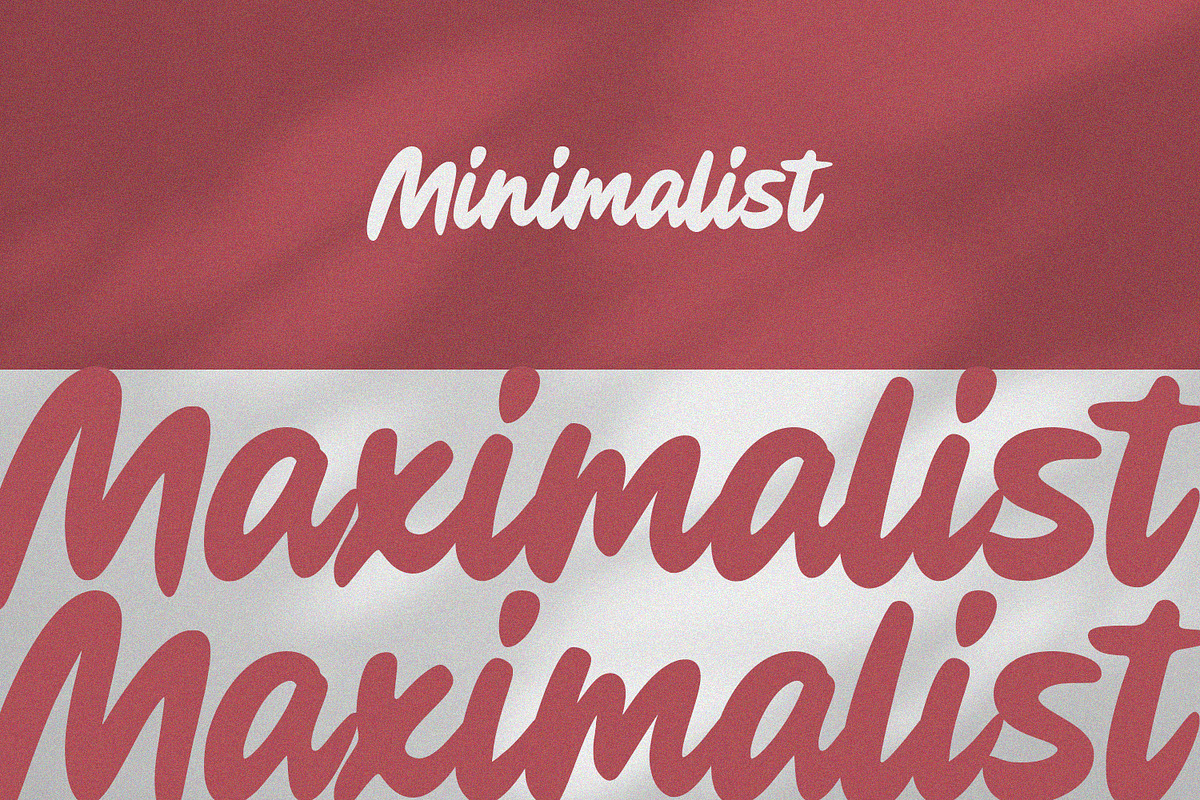
Quandary Font is a script font with elegant and modern feels. It will be perfectly used for branding, logo design, lettering, logotype, clothing, poster, magazine, packaging, posters, shopping bags, t-shirts, book covers, photography, special events and other design project.
Quandary Bold Script Font Preview
This preview highlights the unique shapes and multi-height variations of the Quandary Script Font.